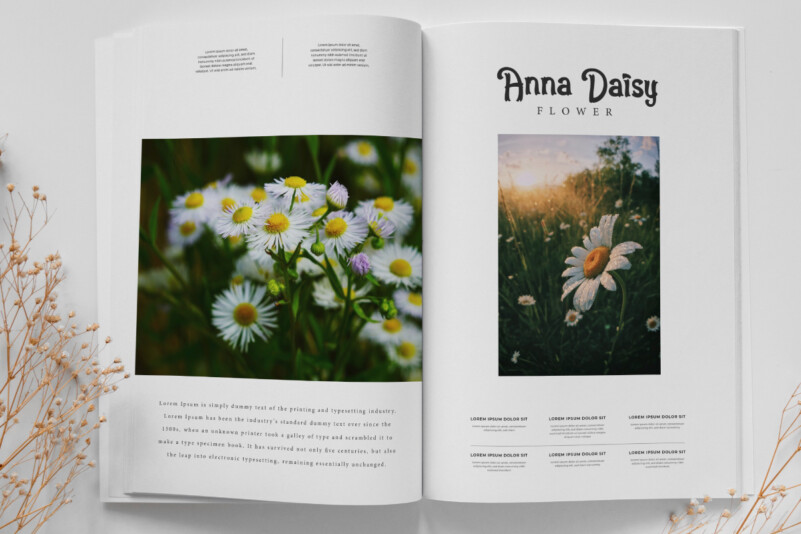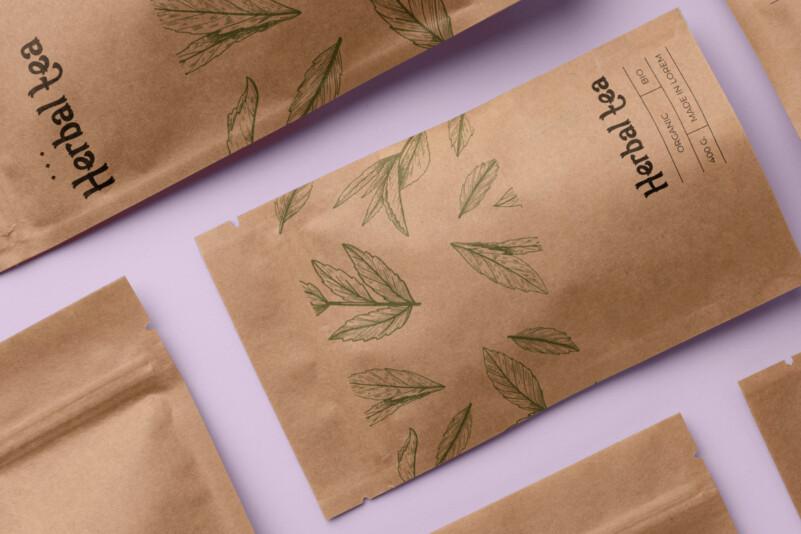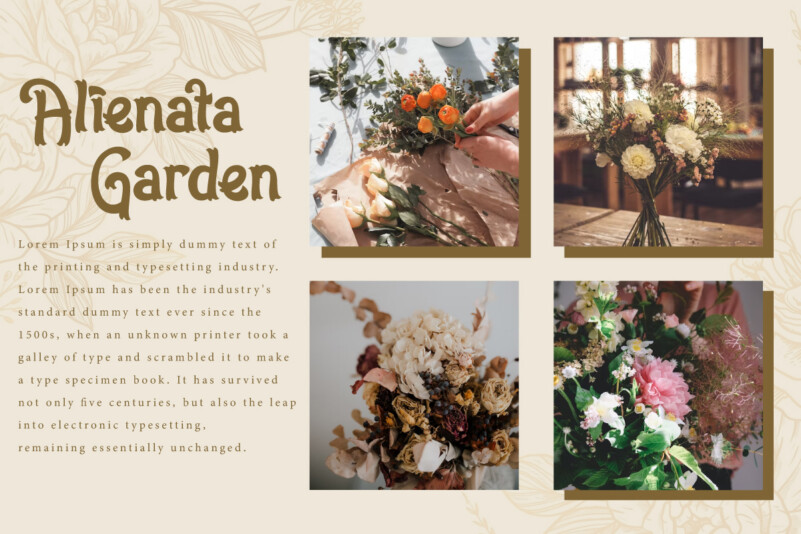
Daisy Romeo Font
Daisy Romeo Font is a unique typography adapted from the beautiful daisy flower that is able to provide a different and standout look that will blend beautifully into your creative projects, such as billboard, brand logo, brochure, catalog, cover, greeting card, header, label, mockup design, product packaging, poster, price tag, screen print, signage, stationery, sticker, title, watermark, website, etc.